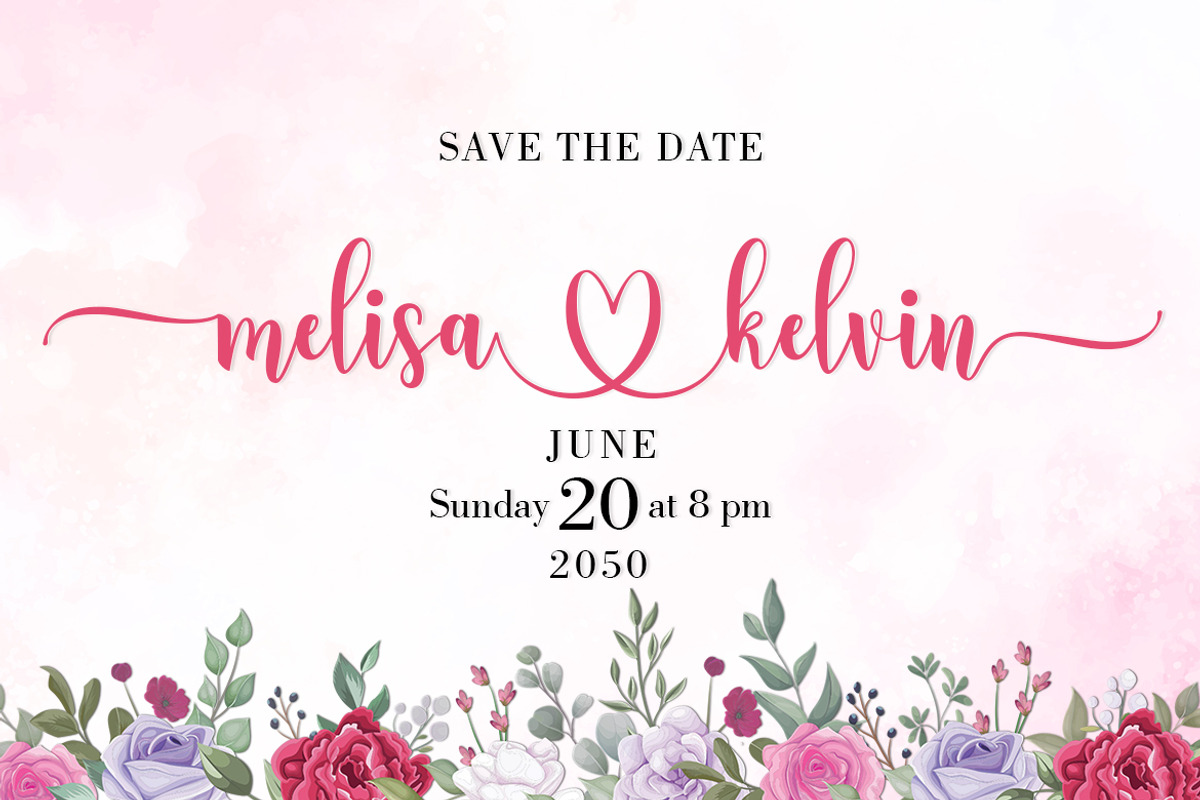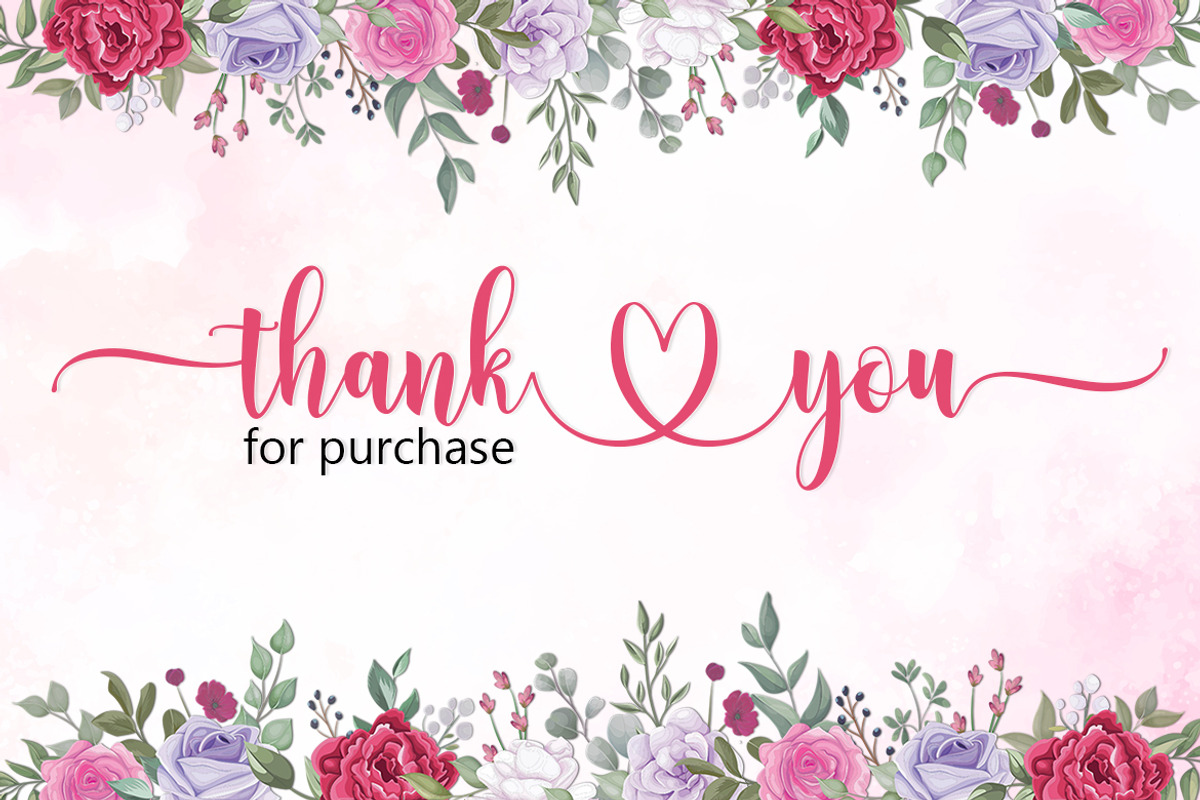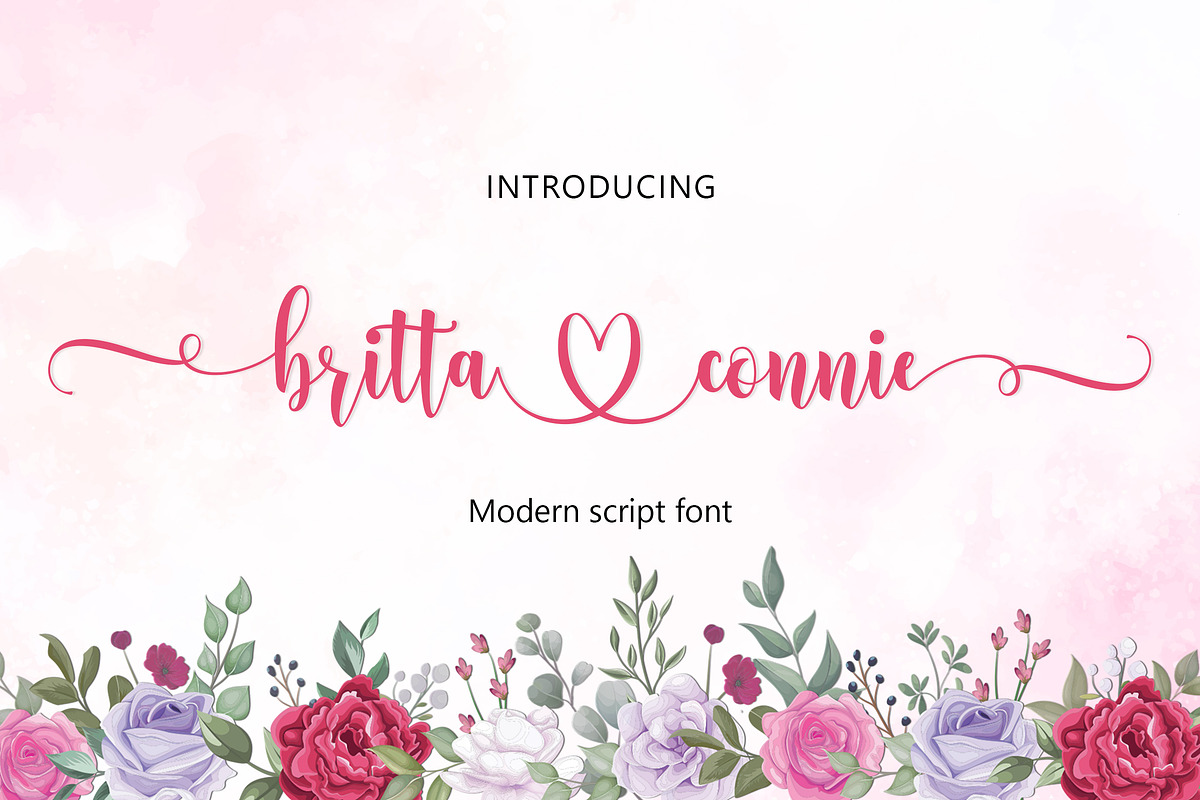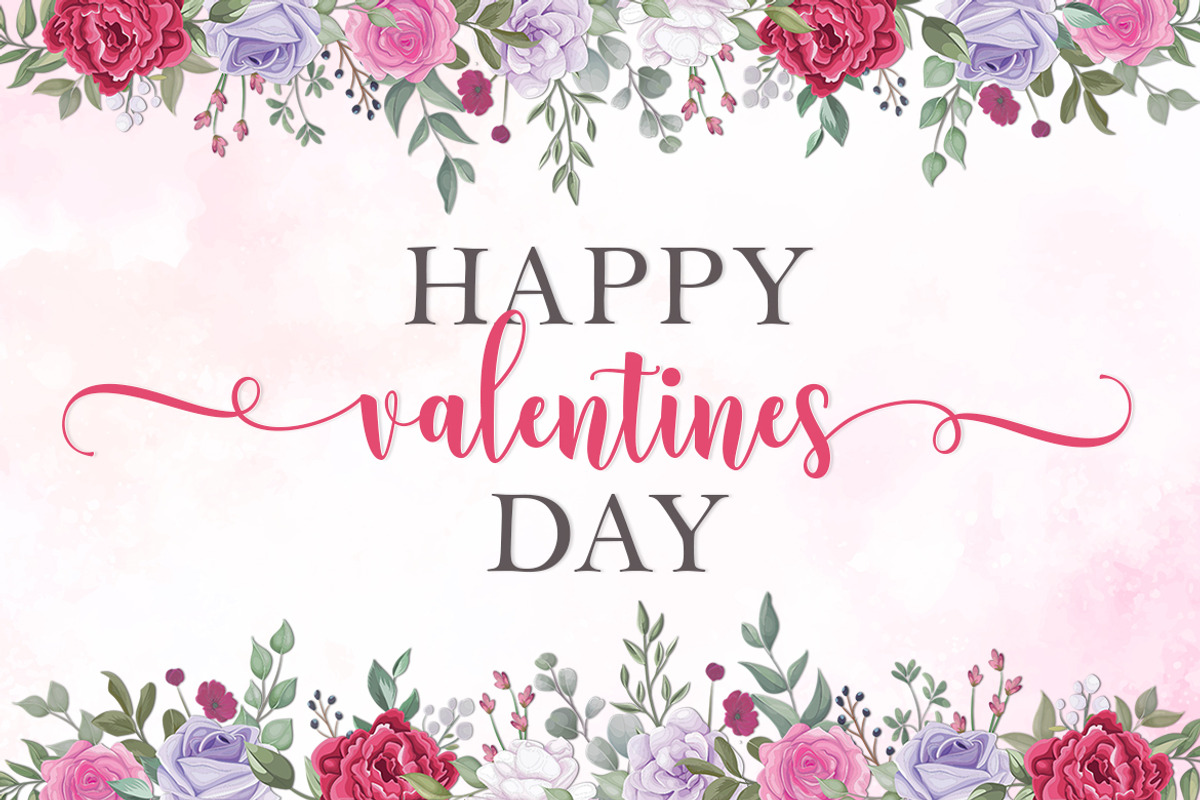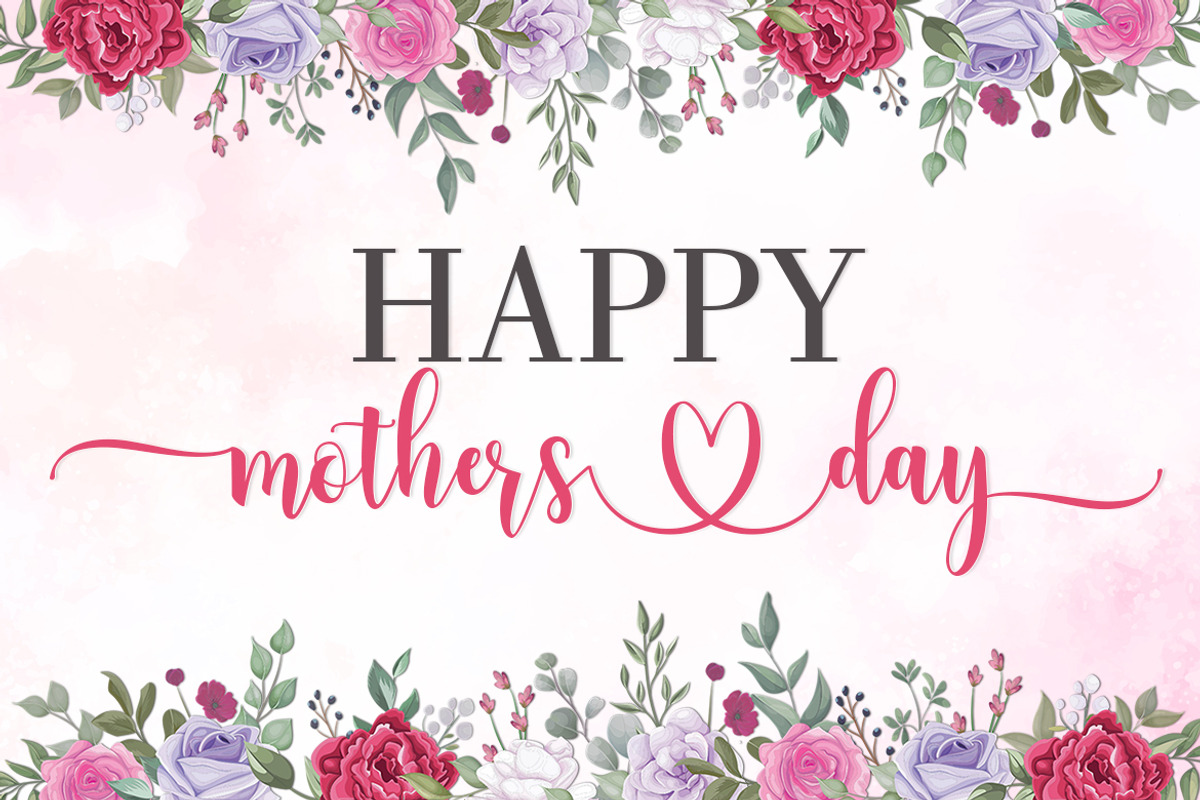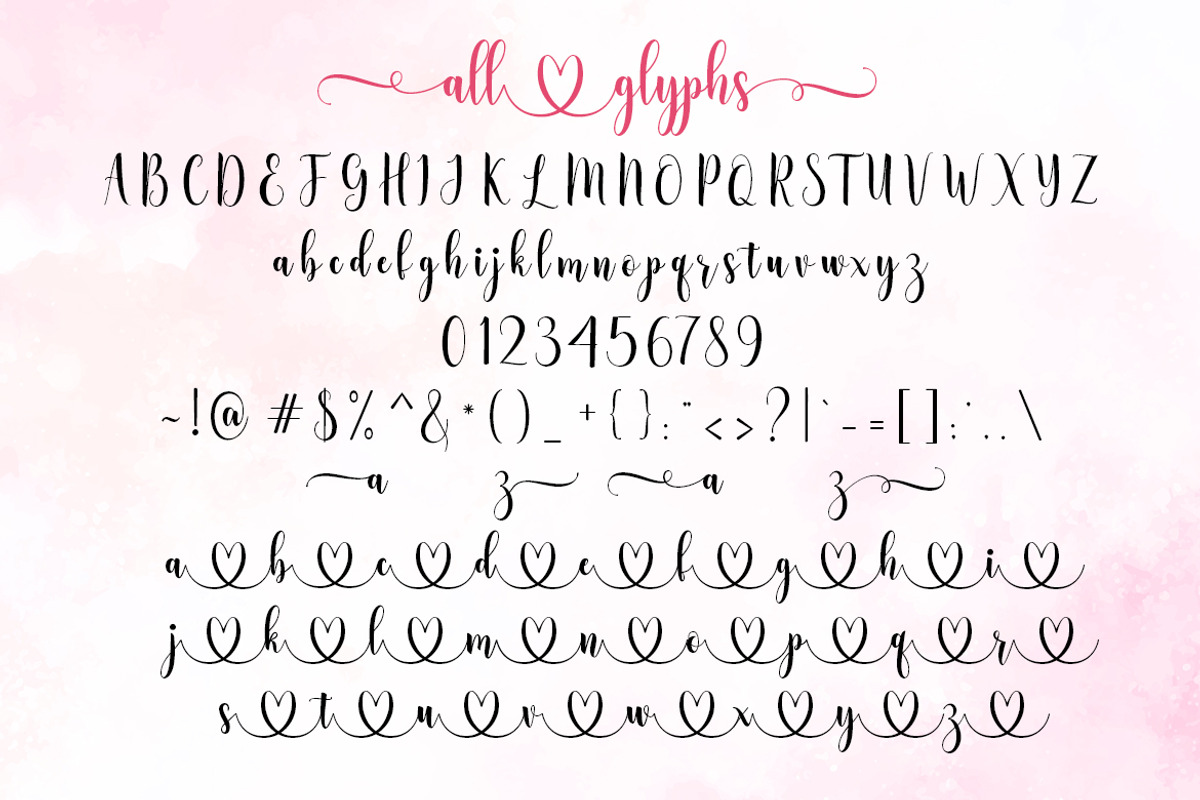
Britta Connie
Britta Connie is a romantic and sweet calligraphy typeface with characters that dance along the baseline. It will add a luxury spark to any design project that you wish to create! This font is PUA encoded which means you can access all of the amazing glyphs and ligatures with ease!